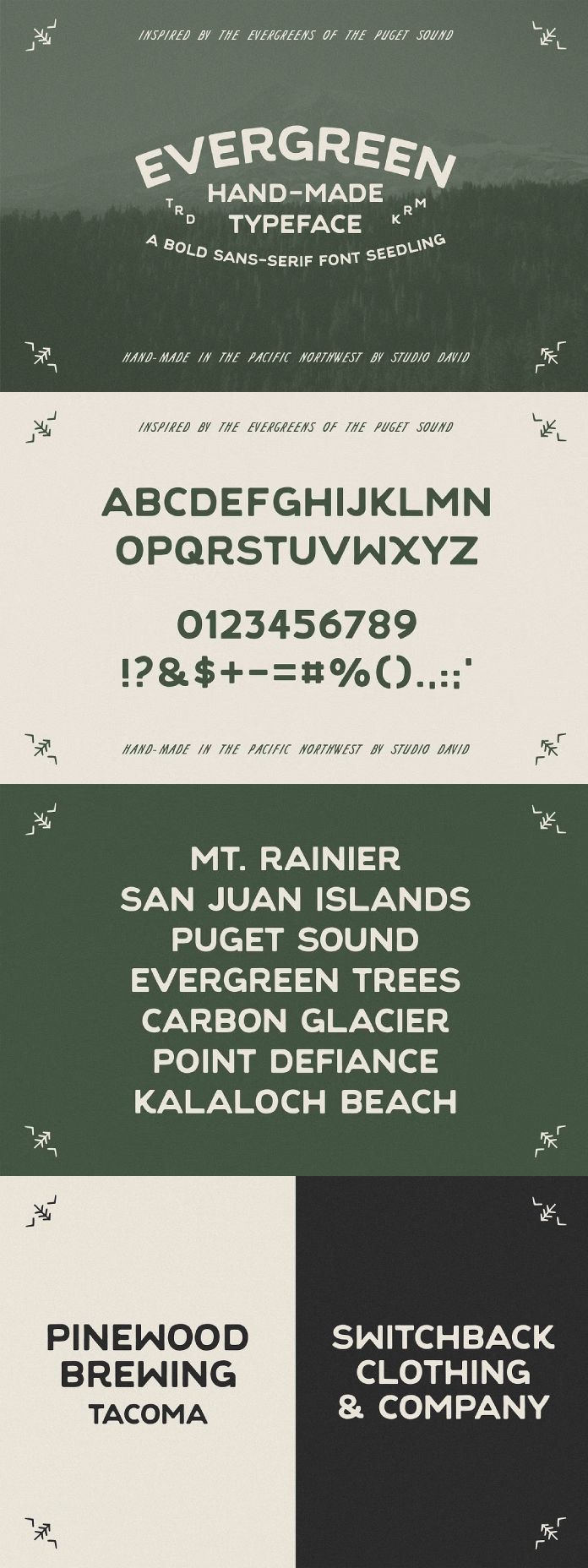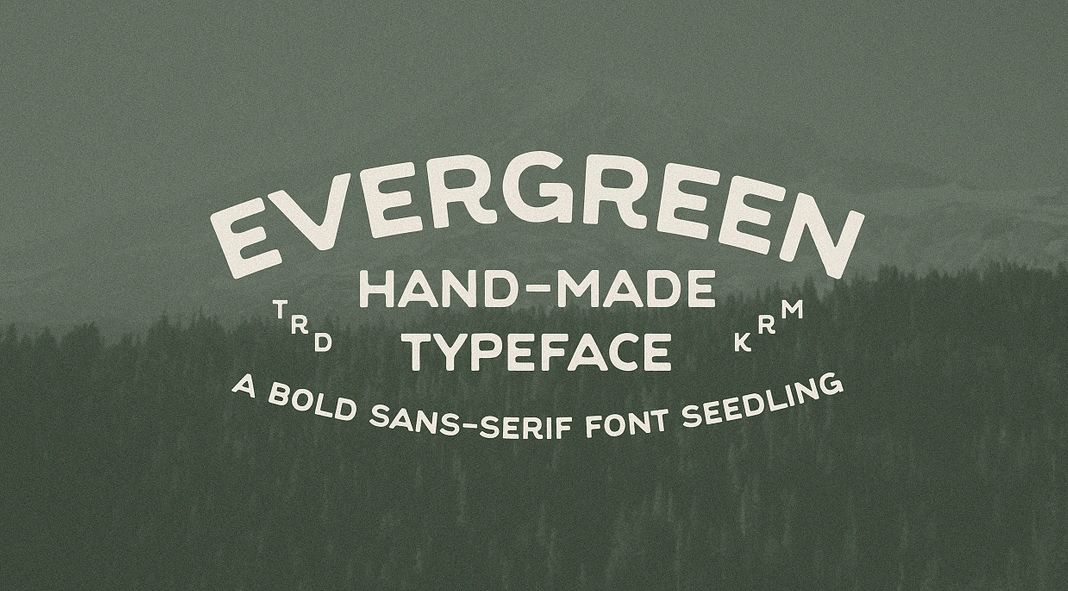
Discover the Charm of the Handcrafted Evergreen Typeface.
In the serene landscapes of the Pacific Northwest, where towering evergreen trees blanket the Puget Sound, Studio David has found inspiration to craft a font that encapsulates this natural beauty. Introducing Evergreen, a hand-crafted typeface that brings the essence of these majestic trees to life.
The Evergreen typeface is more than just a font; it’s a tribute to the rich, mossy landscapes of Washington State. It carries with it the spirit of the evergreens, standing tall and resilient, much like the typeface itself. This all-caps font is meticulously designed to be both bold and approachable, making it a versatile choice for a wide range of applications.
The Craftsmanship Behind Evergreen
Studio David has poured passion and dedication into every curve and line of this typeface. Evergreen is a sans-serif font that feels hand-made and personal, yet polished and professional. It boasts a full set of uppercase letters, numerals, and a variety of punctuation marks, ensuring it meets all your typographic needs.
The boldness of Evergreen makes it perfect for headlines, logos, and branding projects. Its sturdy, clean lines can convey strength and reliability, while its subtle handmade feel adds a touch of warmth and personality. Whether you’re working on an identity system, packaging, or any branding materials, Evergreen will help your project stand out with its distinctive charm.
A Typeface for Every Occasion
One of the standout features of Evergreen is its versatility. This typeface is equally at home in both commercial and personal projects. Imagine the name of a new brewery emblazoned in Evergreen, evoking the rich, forested landscapes that inspire its brews. Picture it on the packaging of artisanal goods, giving products a sense of authenticity and connection to nature.
For businesses, Evergreen can be a powerful tool in crafting a brand identity that resonates with values of sustainability and natural beauty. For personal use, it can add a unique touch to invitations, posters, and DIY projects.
The Evergreen font by Studio David is not just a typeface; it’s a piece of the Pacific Northwest you can incorporate into your designs. Its bold, handmade character can bring a breath of fresh, forest air to your creative projects. By downloading Evergreen, you’re not only getting a functional and beautiful font but also supporting the artistry and vision of independent creators.